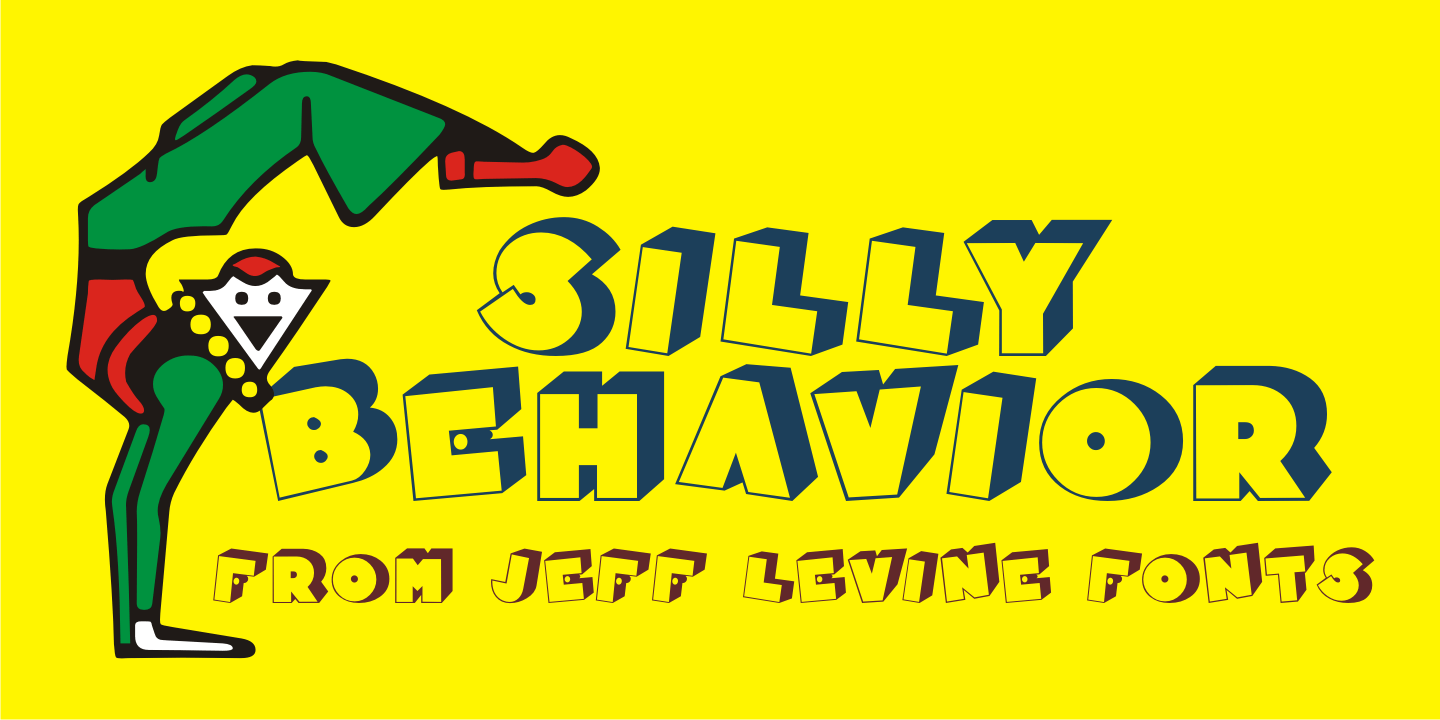
Silly Behavior
Silly Behavior JNL is based on a hand lettered alphabet found within the pages of the vintage lettering book “100 Alphabets Publicitaires” (100 Advertising Alphabets).
The fun, haphazard arrangement of the letters and numbers convey a casual approach to titling.
Silly Behavior JNL Regular by Jeff Levine Fonts